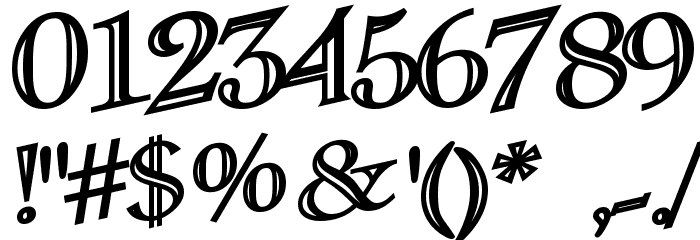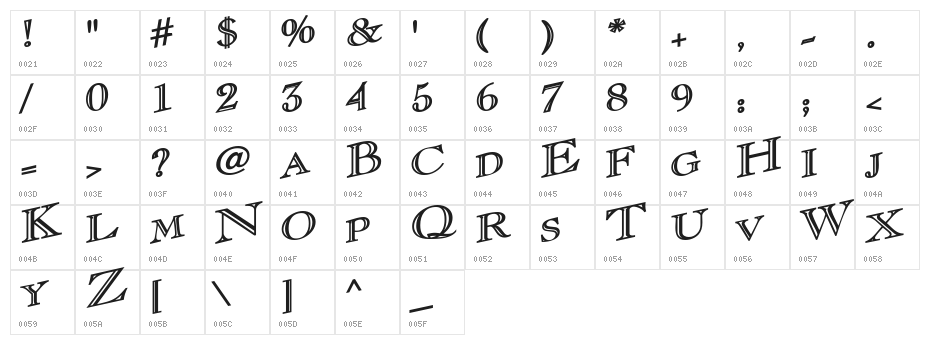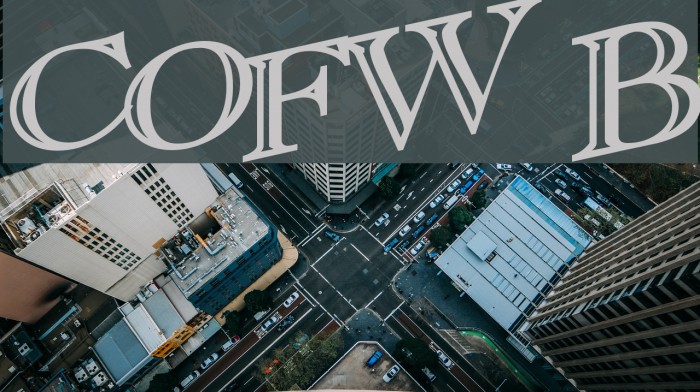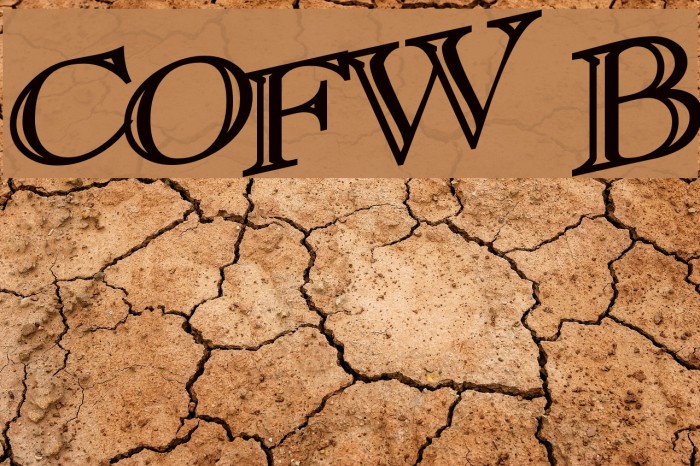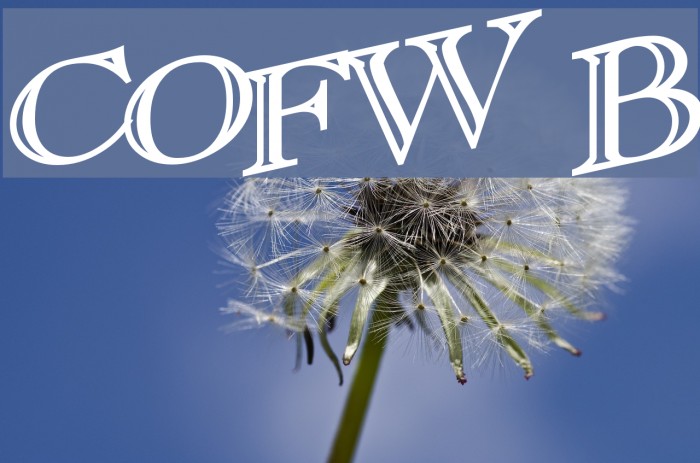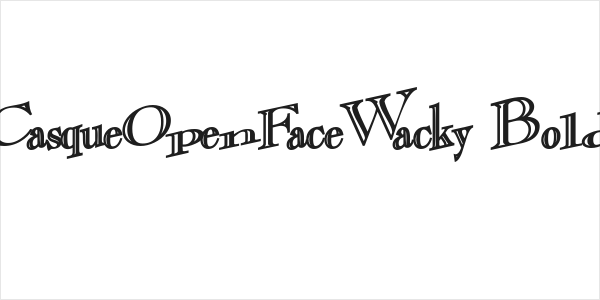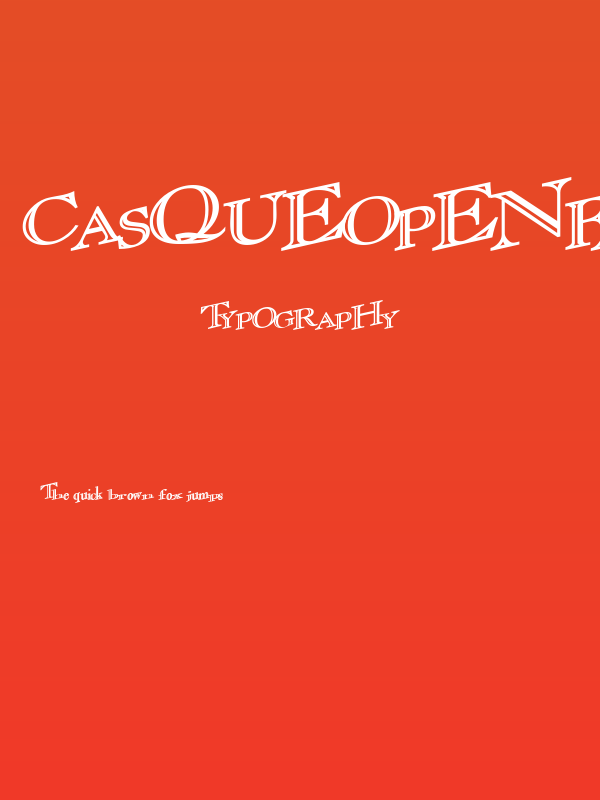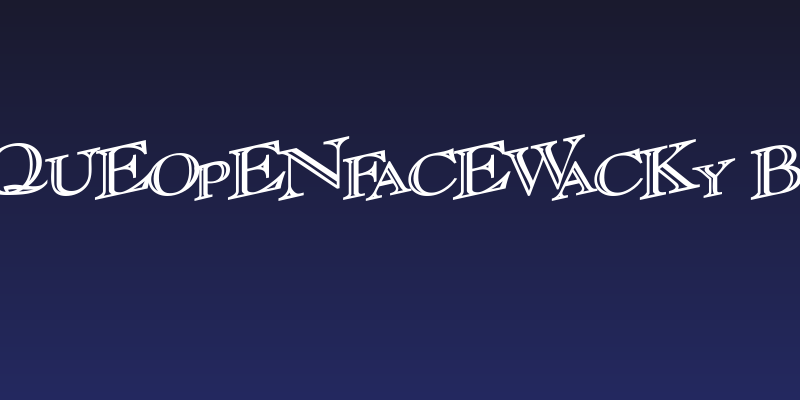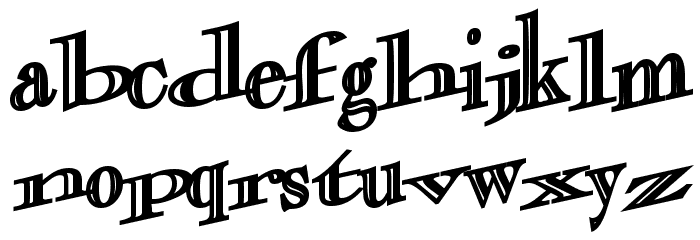
CasqueOpenFaceWacky Bold Font
CasqueOpenFaceWacky Bold Description
This font exhibits a playful and dynamic style, characterized by its bold and exaggerated letterforms. The uppercase and lowercase letters have a whimsical, almost cartoonish quality, with varying stroke widths that create a sense of movement and energy. The numerals and special characters maintain this lively aesthetic, making the font suitable for creative and informal applications. Its unique design features include angled serifs and a slightly slanted orientation, adding to its quirky and unconventional appearance.
| Proposed Projects | Ideal for children's books, comic strips, playful branding, and creative posters. |